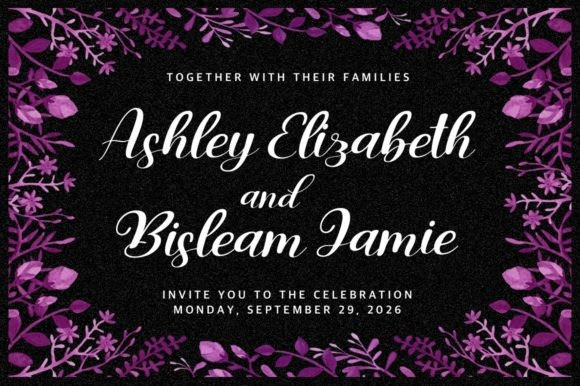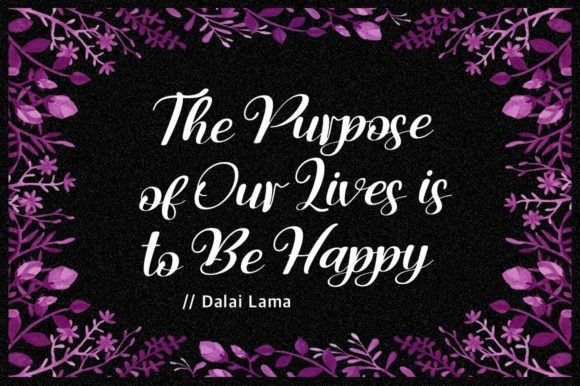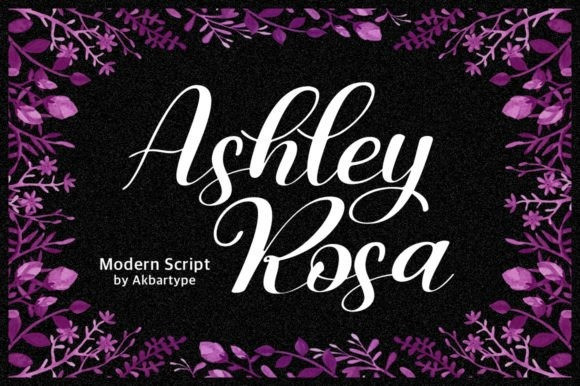
Ashley Rosa Font
Ashley Rosa Font is a stylish and incredibly elegant script font. It looks stunning on wedding invitations, thank you cards, quotes, greeting cards, logos, business cards, and every other design which needs a handwritten touch.